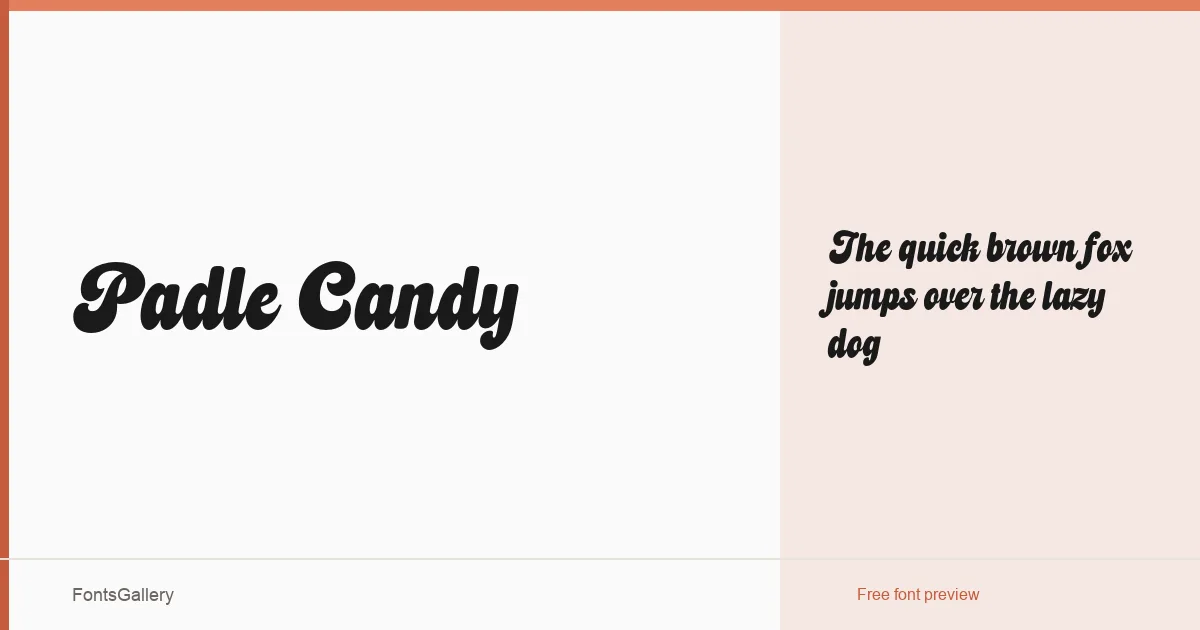
About Padle Candy Font
Padle Candy is a script typeface crafted by Jolicia Type Foundry, blending playful whimsy with a bold, vintage character. It brings an energetic and expressive personality to any design project, making it an eye-catching choice for creatives seeking something with real flair. Its distinctive style strikes a balance between nostalgic charm and lively, modern appeal.
As a script font, Padle Candy features fluid, hand-crafted letterforms that exude a whimsical and vintage sensibility. The bold strokes give each character a strong visual presence, while the playful curves and details keep the overall feel light and fun. This combination makes every word set in Padle Candy feel both expressive and full of personality.
Padle Candy shines in high-impact applications such as logos, posters, branding materials, social media graphics, and t-shirt designs where a bold, characterful headline is needed. Its vintage-playful nature makes it especially effective for brands and campaigns that want to communicate warmth, creativity, and a handcrafted touch. For a striking typographic combination, consider pairing Padle Candy with Aresink or Helvetica to balance its expressive script style with complementary letterforms.